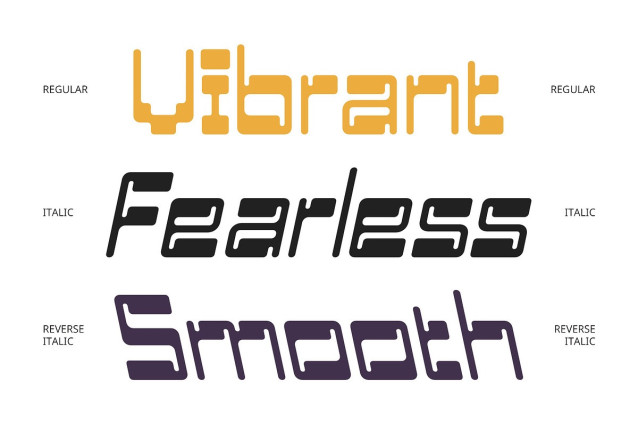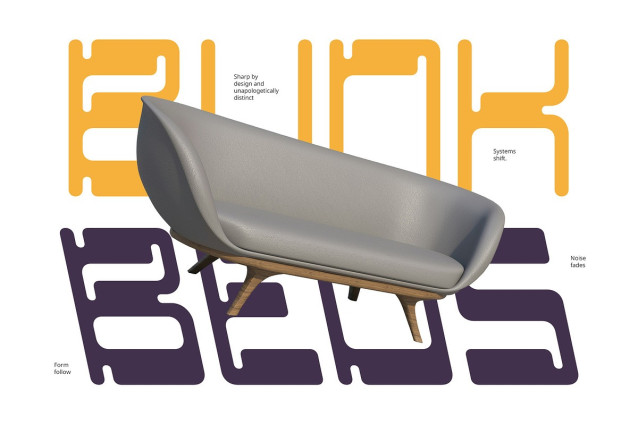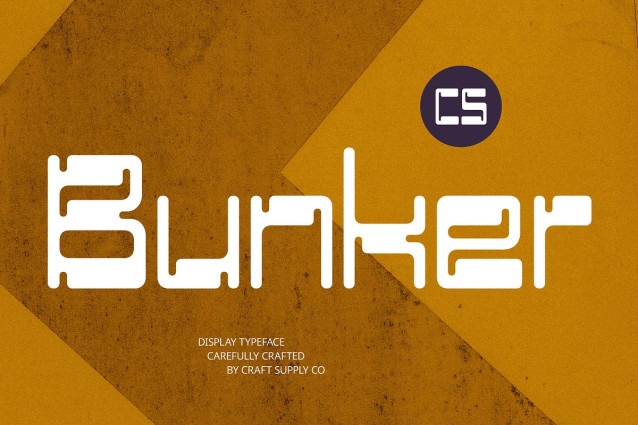
CS Bunker Font
CS Bunker Font is a display font featuring a unique reverse contrast style where the horizontal strokes are noticeably thicker than the vertical ones. This uncommon design choice creates a striking and unconventional look that immediately grabs attention while adding dynamic visual interest and balance to the letterforms.
Soft, Rounded Letterforms Balancing its bold structural features, CS Bunker incorporates smooth, rounded edges that soften the overall appearance. This fusion of sharp contrast and gentle curves gives the font a warm, approachable, and friendly character, making it versatile for a variety of creative applications.
’90s Retro Vibe with a Modern Twist Drawing strong inspiration from the playful and eccentric spirit of 1990s digital pop culture, CS Bunker channels early computer graphics and retro-futuristic aesthetics. Its slightly experimental style pays homage to vintage digital era design while feeling fresh and relevant for today’s projects.
Versatile for Bold, Fun, and Expressive Designs Perfectly suited for nostalgic posters, music album covers, vibrant branding, and any creative work that demands a font full of personality, CS Bunker effortlessly brings energy and distinctiveness. Whether your goal is to evoke nostalgia, express fun, or create a unique retro-modern identity, this font stands out with style and charm.